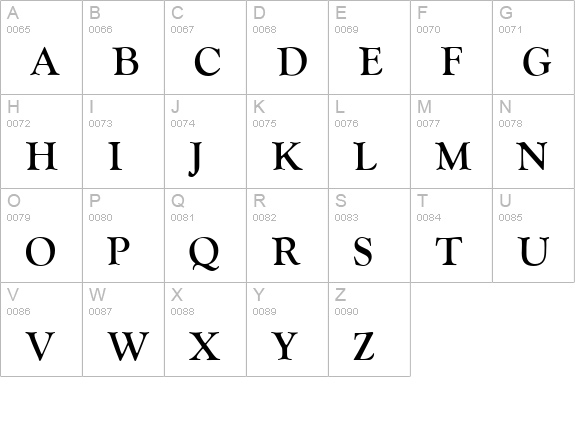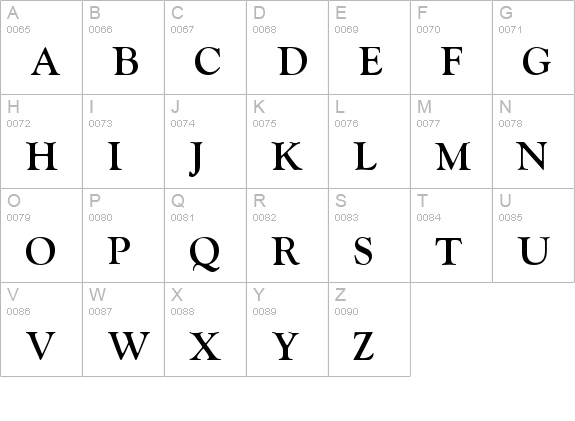
QTOldGoudy Bold Font Details
QTOldGoudy Bold is a strong, high-contrast variant in the QTOldGoudy typeface family \xE2\x80\x94 well suited to headlines, attention-grabbing titles, and strong calls-to-action.
QTOldGoudy Bold font is a timeless and elegant typeface that exudes sophistication and charm. With its bold and commanding presence, this font is perfect for adding a touch of refinement to any design project. The strong and well-defined letterforms of QTOldGoudy Bold make it ideal for headlines, titles, and branding materials. Its classic and traditional appeal brings a sense of nostalgia while still maintaining a contemporary edge. This font effortlessly combines the old-world charm of Goudy with a modern twist, making it versatile for both print and digital applications. One of the most appealing aspects of QTOldGoudy Bold is that it is freely available to download at FontsMarket.com. This means that designers and enthusiasts alike can access this exquisite font without any cost, allowing for endless creative possibilities. Whether you are a professional designer or a hobbyist, QTOldGoudy Bold offers a high-quality and accessible option that will elevate your designs to new heights. With its generous x-height and sturdy letterforms, QTOldGoudy Bold ensures excellent legibility at various sizes and across different platforms. Its attention to detail and meticulous design make it a standout choice for projects that require a touch of elegance and sophistication. So, whether you are creating a logo, designing a magazine layout, or working on a website, QTOldGoudy Bold is the perfect font to convey a sense of timelessness and refinement. Download it for free at FontsMarket.com and unlock the potential to create stunning and impactful designs that leave a lasting impression.